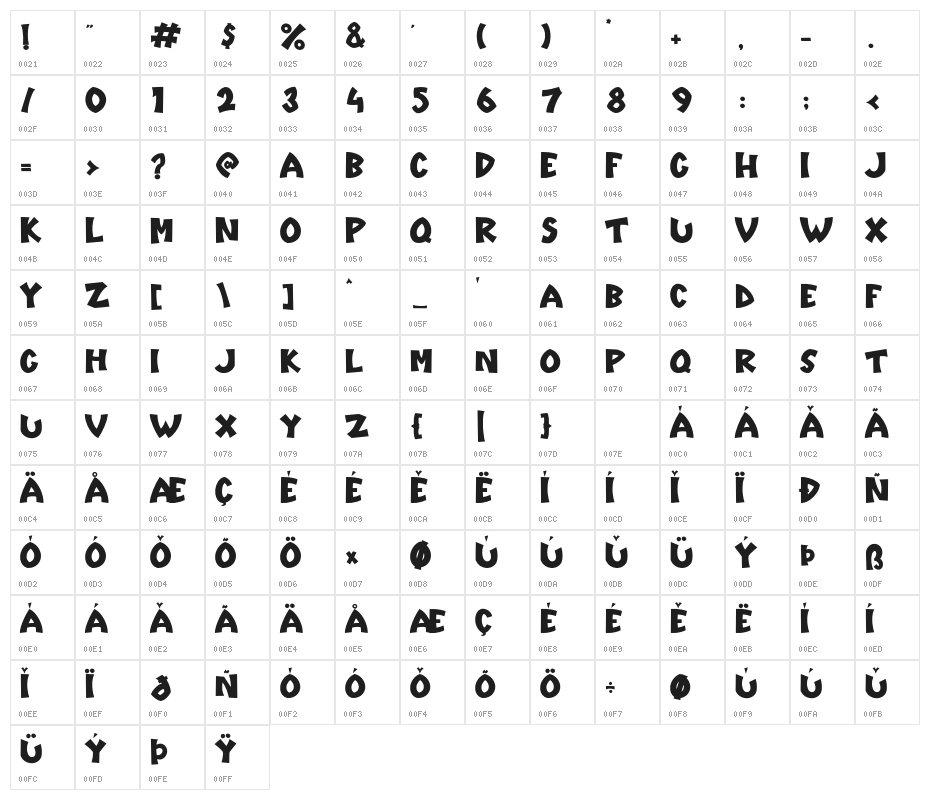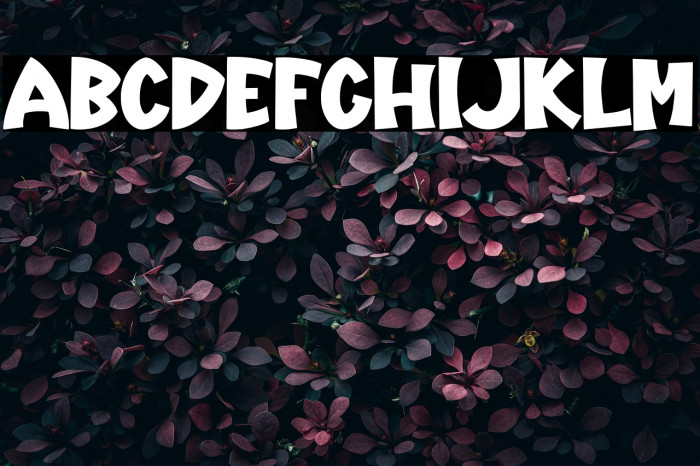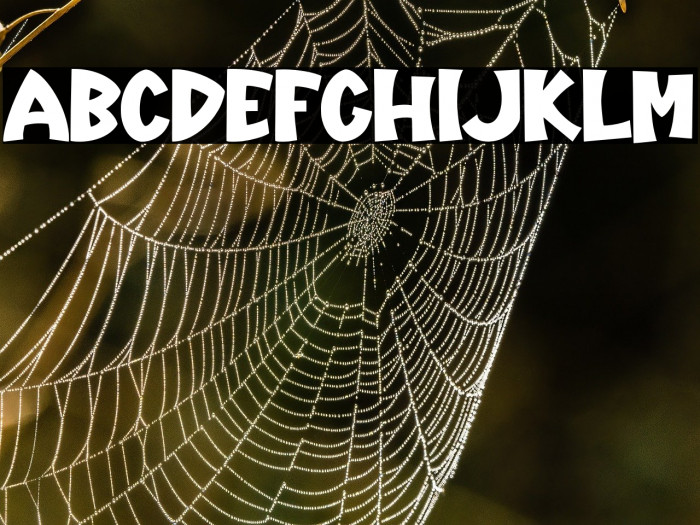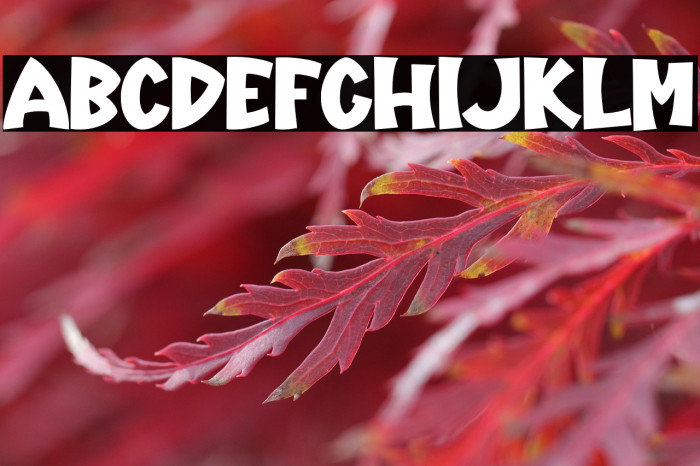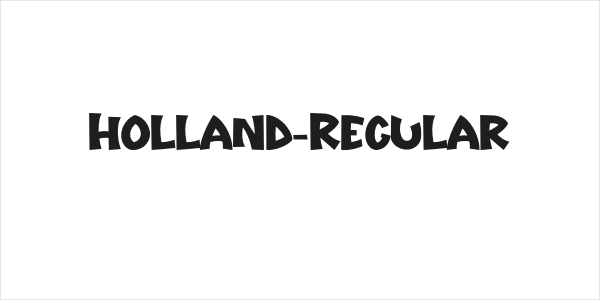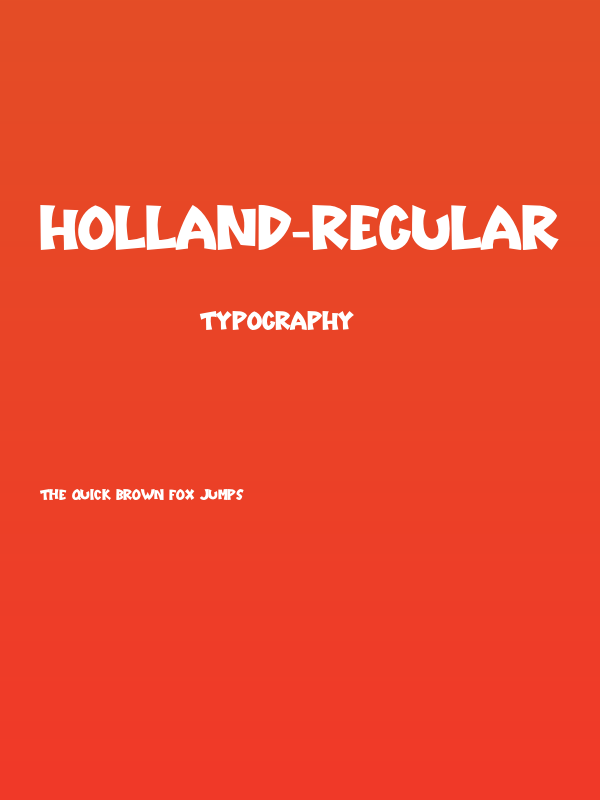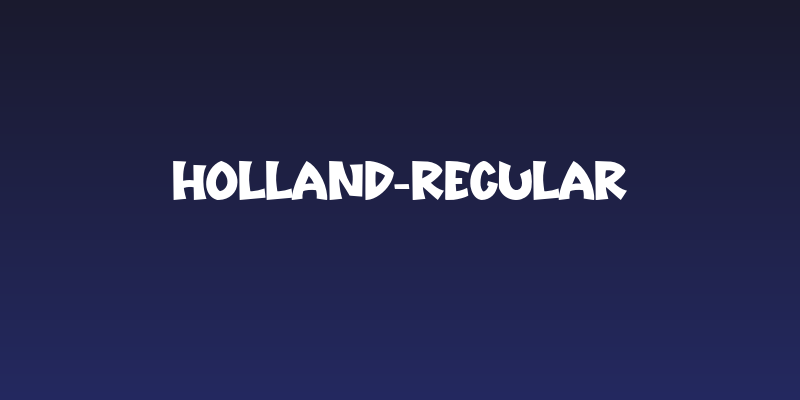
Holland-Regular Font
Holland-Regular Description
This font features a bold and playful design with exaggerated curves and a dynamic, energetic feel. The letters are thick and slightly irregular, giving them a hand-drawn appearance that adds a whimsical touch. The uppercase and lowercase letters maintain a consistent style, with rounded edges and a slightly tilted orientation, enhancing the font's lively character. The numbers and special characters follow the same playful aesthetic, making the font suitable for creative and informal applications. Its boldness ensures high visibility, making it ideal for attention-grabbing designs.
| Proposed Projects | Ideal for children's books, playful branding, posters, and creative invitations. |